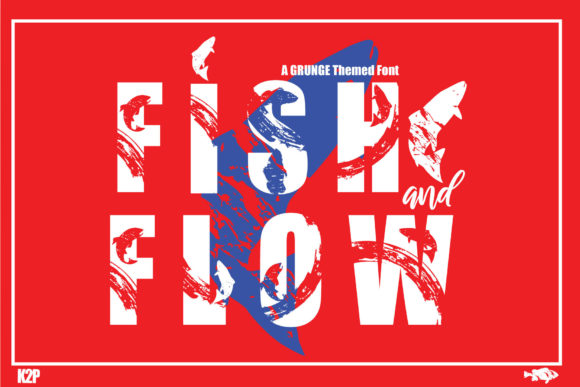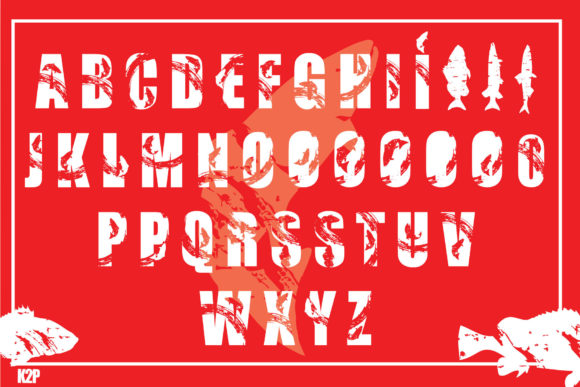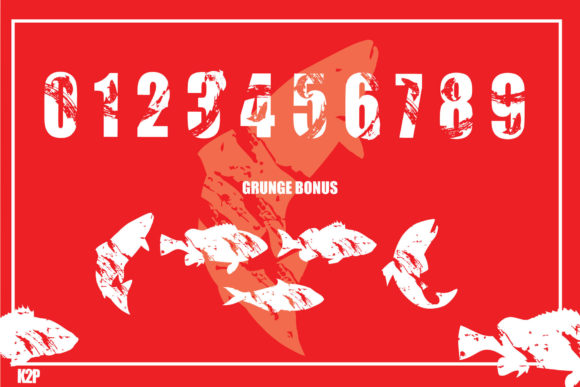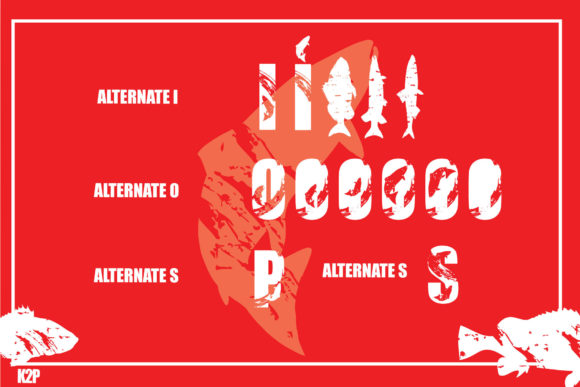
Fish and Flow Font
About the Fish and Flow Font
The Fish and Flow Font is here to transform your projects with its distinctive character and style. Fish and Flow is a bold and assertive decorative font. It is perfect for various design ideas related to fishing, camping, or both. Have fun with this beautiful font, and explore its endless variations!
Fish and Flow excels in headlines, logos, and short, impactful text for outdoor brands, adventure gear, or fishing-related businesses. Its assertive nature makes it unsuitable for body text or UI elements where readability is paramount; long paragraphs set in this font would be difficult to read.
The font’s bold personality pairs well with clean sans-serif fonts like Open Sans for body copy, creating a strong contrast. For a more rugged feel, consider pairing it with a rough-hewn serif like Playfair Display. Avoid pairing it with other decorative fonts, as this would create visual clutter.
Fish and Flow projects a bold, adventurous, and slightly rebellious energy. Brands seeking to convey a sense of ruggedness, freedom, and high-quality craftsmanship will find it particularly effective.